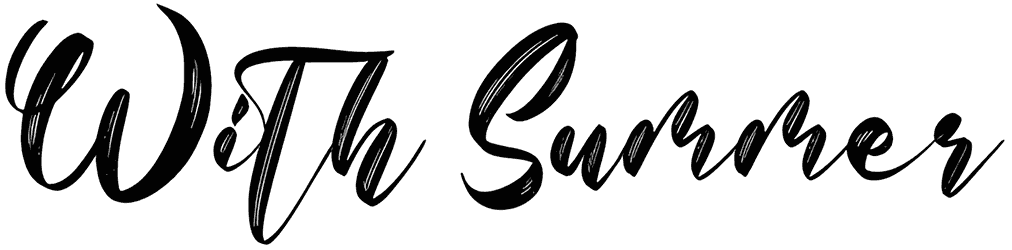
The Chemical Font
The Chemical is a script font that has a classic look, so it can evoke a sense of joy, cheerfulness, dynamic, and professionalism in the audience. This brush font does not support punctuation and is not legible due to its unique appearance. Needless to say this font can be utilized to design logos, flyers, menus, online advertisements, and prints on clothes.
Designed by: ReyreyBlue